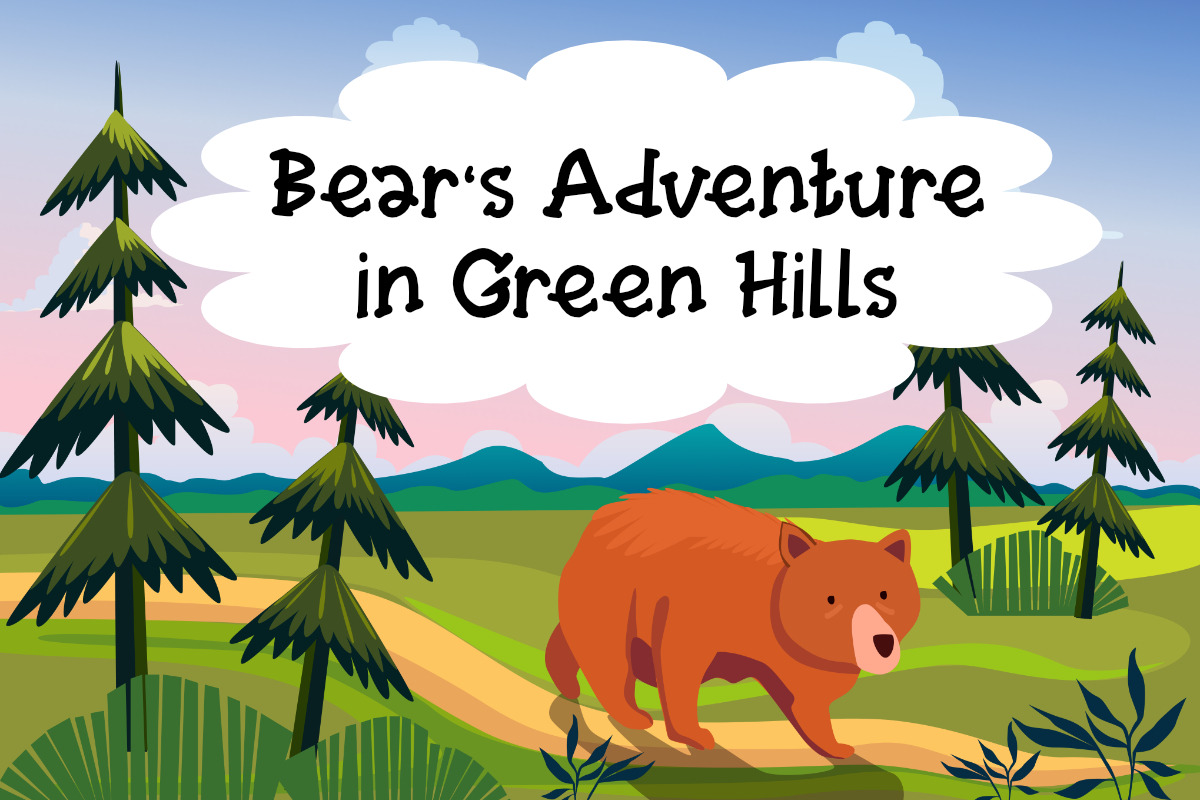
Noku Font Playful
Noku is a whimsical, hand-drawn font designed for children’s books, storybook illustrations, and playful branding. Its friendly, rounded letters bring warmth and creativity to kids’ posters, educational materials, and animated movie titles. Perfect for designers looking to add a fun, imaginative touch to their work!